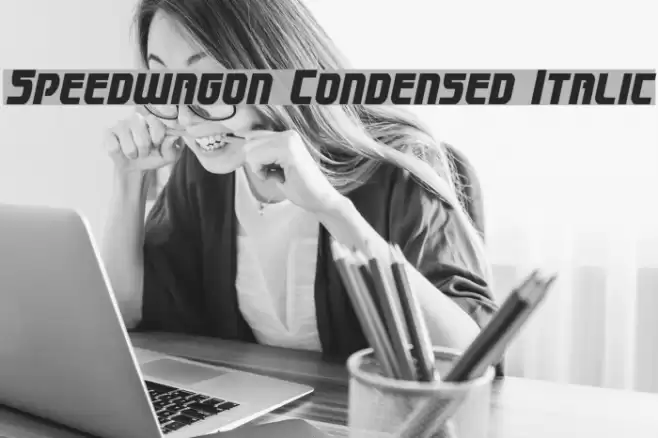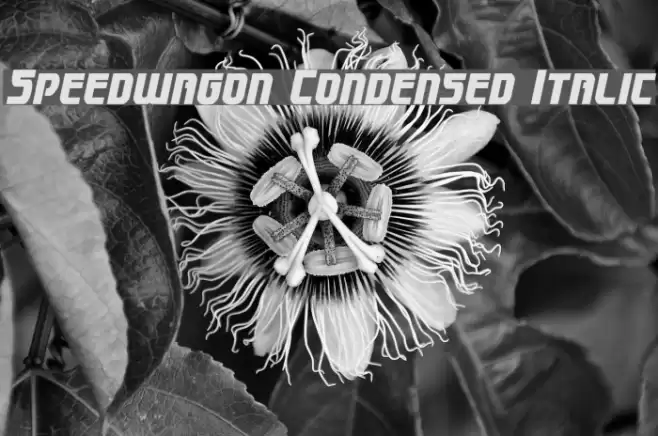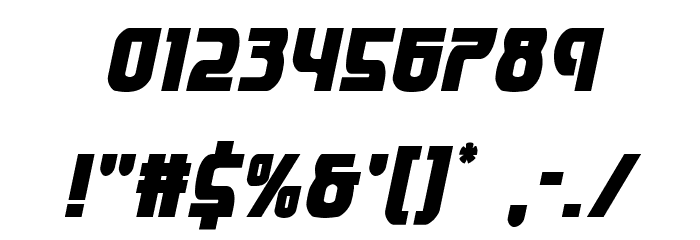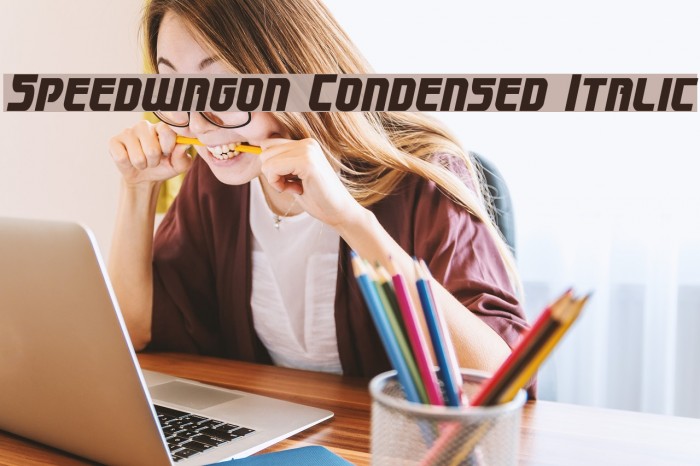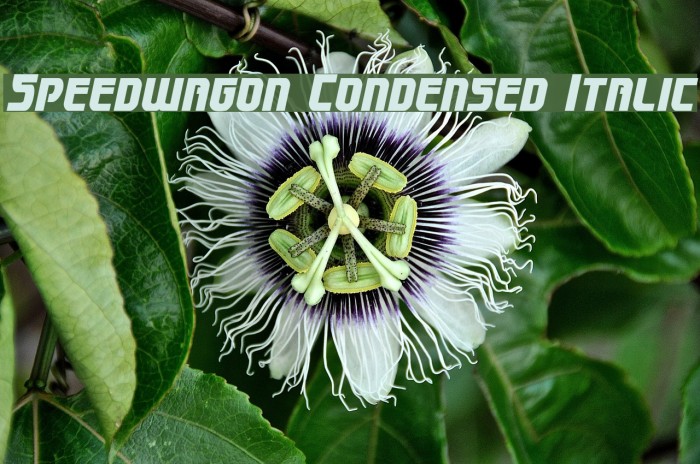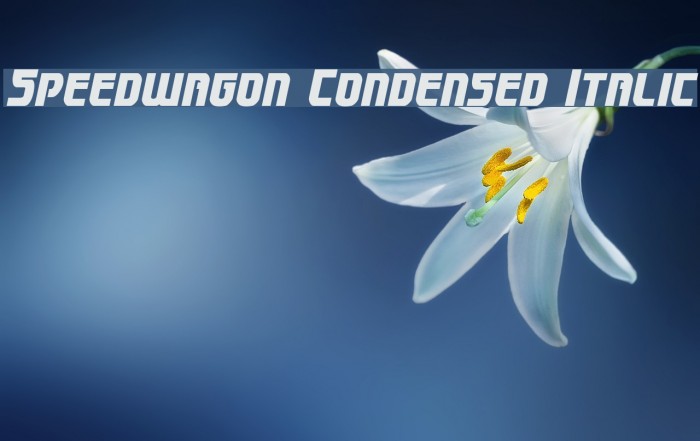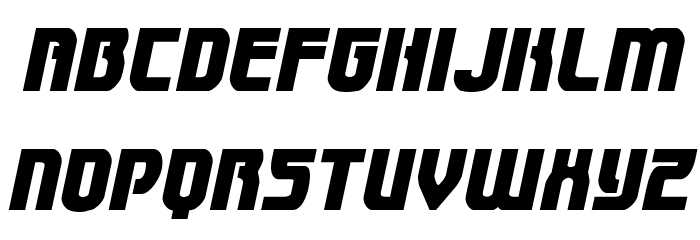
Speedwagon Condensed Italic Font
Speedwagon Condensed Italic Description
This font features a bold and dynamic style with a condensed and italicized form. The characters are tightly spaced, giving it a compact appearance. The strokes are thick and consistent, providing a strong visual impact. The angular design of the letters adds a sense of motion and energy, making it ideal for attention-grabbing headlines. The numbers and special characters maintain the same bold and italicized style, ensuring uniformity across all elements.
A bold, condensed, and italicized font with a dynamic and energetic style from Uncategorized fonts.
- Proposed Projects: Ideal for sports branding, dynamic posters, and impactful headlines.
- Character Spacing: Tight